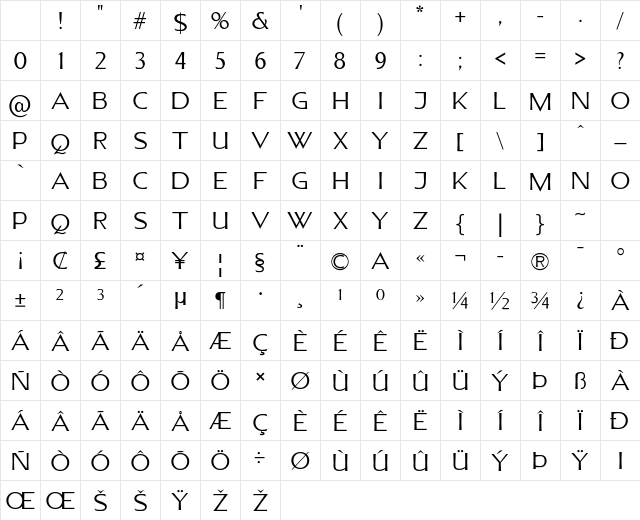
Maldives Sans is a composed and adaptable typeface that performs quietly and consistently across a wide range of design contexts.
Pro Tip: Use Maldives Sans in both headline and body roles to test its range before committing to a single application.